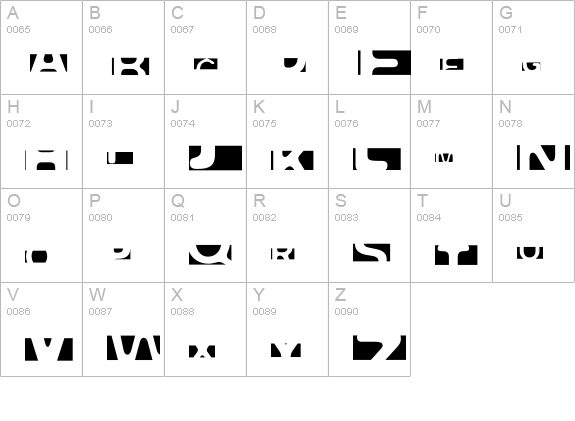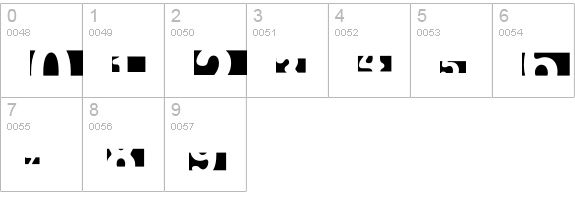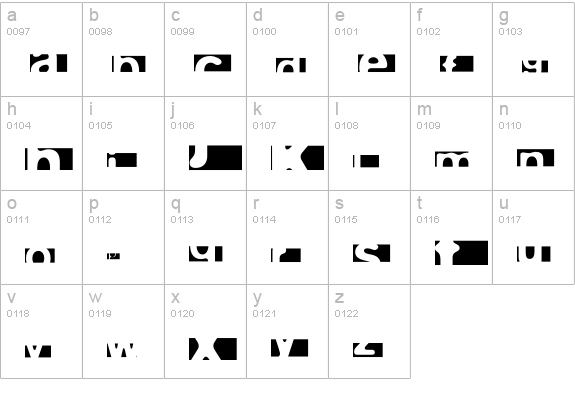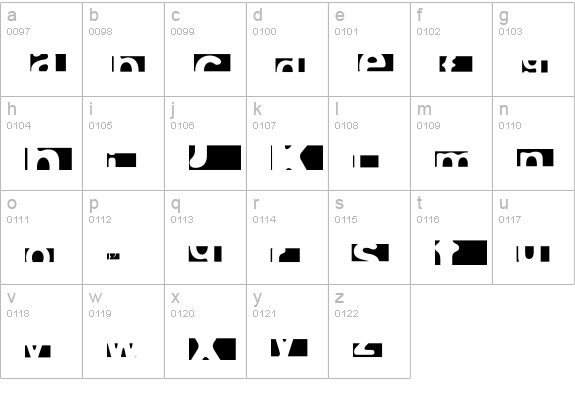
FPeep-Confused Font Details
FPeep-Confused font is a whimsical and playful typeface that adds a touch of fun and creativity to any design project. With its quirky and irregular letter shapes, this font exudes a sense of confusion and curiosity, making it perfect for eye-catching headlines, posters, and branding materials. What sets FPeep-Confused font apart is its unique blend of playful charm and artistic flair, making it a versatile choice for a wide range of design applications. Whether you're looking to add a bit of whimsy to your next project or create a standout logo, this font is sure to make a statement. Best of all, FPeep-Confused font is available for free download at FontsMarket.com, making it accessible to designers of all levels. So go ahead and unleash your creativity with this fun and engaging typeface today!